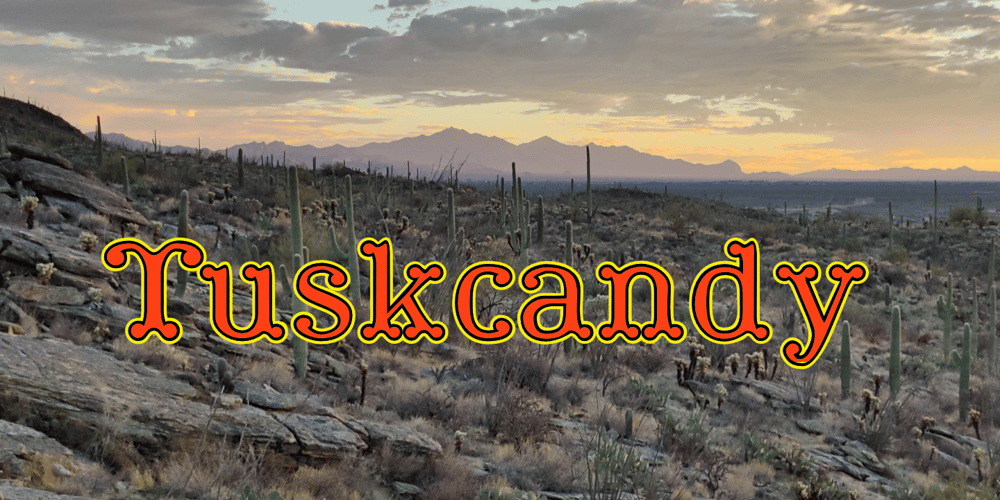
Tuskcandy
Tuskcandy font
Tuskcandy Font Family was designed by Robert Schenk and published by Ingrimayne Type. Tuskcandy contains 5 styles and family package options. Tuskcandy is a decorative Tuscan font in which the prominent split serifs are made of two balls. It is available in two weights and also an inline style. It has a nineteenth century feel to it though it is not a copy of any particular font from that time period.